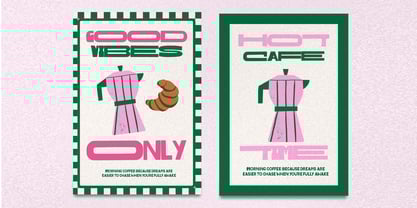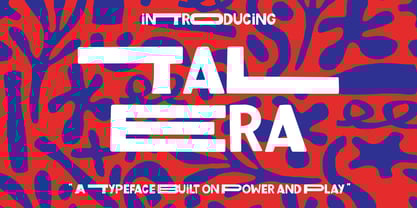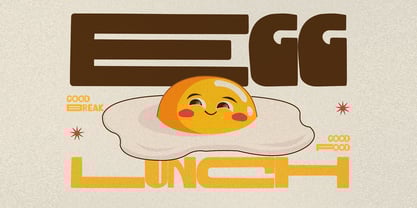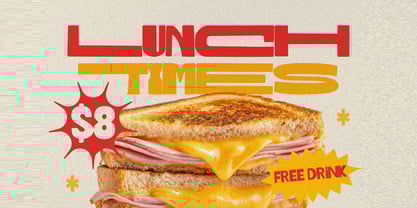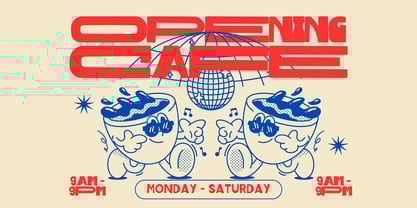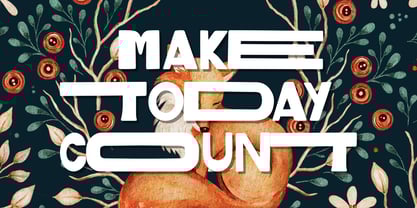
Talera Sans Serif
by Maghrib Type
The Talera Sans Serif Font Family was designed by Rizky Setyaludin and published by Maghrib Type. Talera Sans Serif contains 1 styles. More about this family
Talera is a bold sans serif display typeface built with a strong visual personality and playful energy. Designed to stand out, Talera features wide letterforms, heavy strokes, and distinctive horizontal cuts that give each character a powerful yet friendly presence. Inspired by modern retro aesthetics, Talera blends geometric structure with soft curves, resulting in a typeface that feels confident, expressive, and highly graphic. Its unique construction makes words feel like visual shapes, perfect for eye-catching headlines and bold branding. Talera excels in large sizes, where its character truly shines, but it also maintains clarity and impact across various design applications. Whether used for typography-led compositions or paired with illustrations, Talera adds a memorable and energetic voice to any project. Talera is ideal for: Headlines and poster design Branding and logo design Café, restaurant, and food & beverage projects Packaging and promotional materials Social media graphics and advertising Editorial and display typography With its playful modern-retro style and strong display presence, Talera is a versatile sans serif font for designers who want their work to feel bold, fun, and unmistakably unique.
Designers: Rizky Setyaludin
Foundry: Maghrib Type